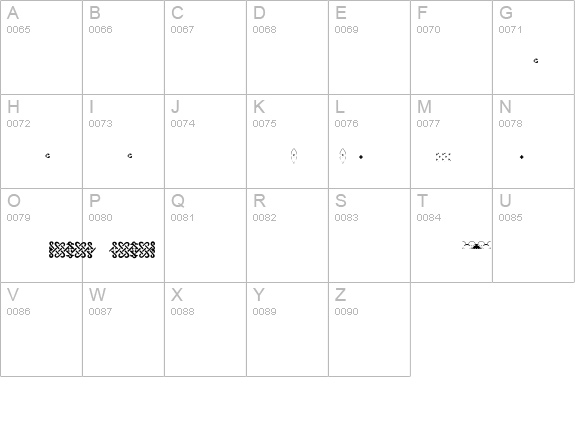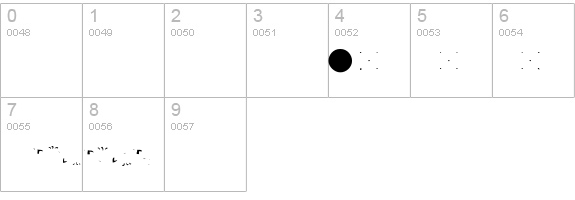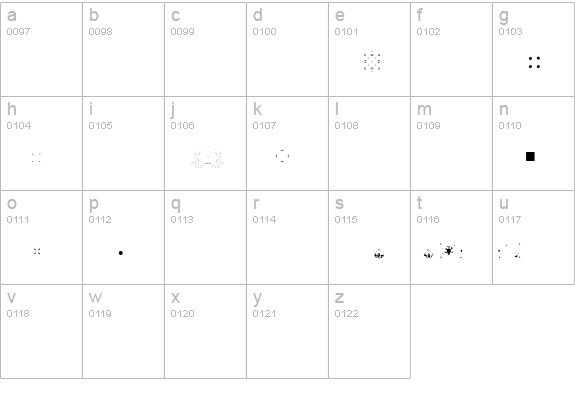
PFOrnmTreasures2-Layer6 font is a stunningly intricate and ornate typeface that exudes elegance and sophistication. With its delicate details and multi-layered design, this font is perfect for adding a touch of luxury to your projects. The intricate patterns and flourishes of PFOrnmTreasures2-Layer6 make it a versatile choice for a wide range of design applications, from wedding invitations to branding materials. The best part? PFOrnmTreasures2-Layer6 font is available for free download at FontsMarket.com. Whether you're a designer looking to add a special touch to your work or a hobbyist wanting to experiment with a new typeface, this font is sure to inspire and delight. Download PFOrnmTreasures2-Layer6 today and elevate your designs with its exquisite beauty and charm.